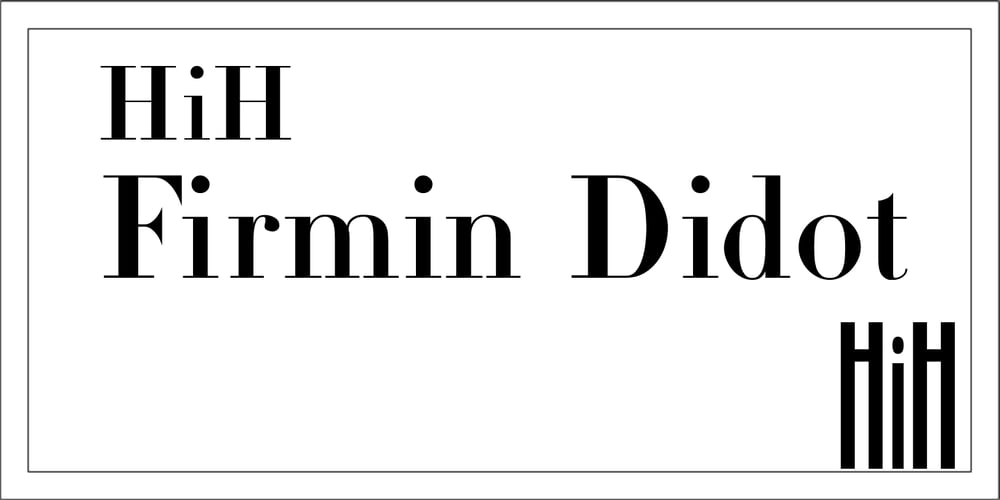
HiH Firmin Didot Font Family was designed by Firmin Didot and published by HiH. HiH Firmin Didot contains 1 styles and family package options. Before Bodoni, there was Didot. With the publication by Francois Ambroise Didot of Paris in 1784 of his prospectus for Tasso’s La Gerusalemme Liberata, the rococo typographical style of Fournier de Jeune was replaced with a spartan, neo-classical style that John Baskerville pioneered. The typeface Didot used for this work was of Didot’s own creation and is considered by both G. Dowding and P. Meggs to be the first modern face. Three years later, Bodoni of Parma is using a very similar face. Just as Bodoni’s typeface evolved over time, so did that of the Didot family. The eldest son of Francois Ambroise Didot, Pierre, ran the printing office; and Firmin ran the typefoundry. Pierre used the flattened, wove paper, again pioneered by Baskerville, to permit a more accurate impression and allow the use of more delicate letterforms. Firmin took full advantage of the improved paper by further refining the typeface introduced by his father. The printing of Racine’s Oeuvres in 1801 (seen in our gallery image #2) shows the symbiotic results of their efforts, especially in the marked increase in the sharpness of the serifs when compared to their owns works of only six years earlier. It has been suggested that one reason Bodoni achieved greater popularity than Didot is the thinner hairlines of Didot were more fragile when cast in metal type and thus more expensive for printers to use than Bodoni. This ceased to be a problem with the advent of phototypesetting, opening the door for a renewed interest in the work of the Didot family and especially that of Firmin Didot. Although further refinements in the Didot typeface were to come (notably the lower case ‘g’ shown in 1819), we have chosen 1801 as the nominal basis for our presentation of HiH Firmin Didot. We like the thick-thin circumflex that replaced the evenly-stroked version of 1795, possible only with the flatter wove paper. We like the unusual coat-hanger cedilla. We like the organic, leaf-like tail of the ‘Q.’ We like the strange, little number ‘2’ and the wonderfully assertive ‘4.’ And we like the distinctive and delightful awkwardness of the double-v (w). Please note that we have provided alternative versions of the upper and lower case w that are slightly more conventional than the original designs. Personally, I find the moderns (often called Didones) hard on the eyes in extended blocks of text. That does not stop me from enjoying their cold, crisp clarity. They represent the Age of Reason and the power of man’s intellect, while reflecting also its limitations. In the title pages set by Bodoni, Bulmer and Didot, I see the spare beauty of a winter landscape. That appeals to a New Englander like myself. Another aspect that appeals to me is setting a page in HiH Firmin Didot and watching people try to figure out what typeface it is. It looks a lot like Bodoni, but it isn’t!